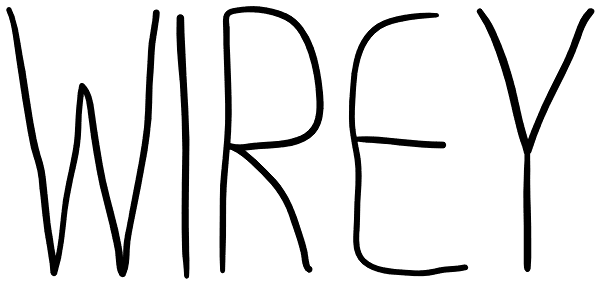
Wirey
Wirey is an uppercase hand drawn font inspired by bent copper wires. It is designed for headers, titles and posters where fonts need to be big and unique. Wirey is styled in a way that looks hand drawn but also keeps a simple, professional element...